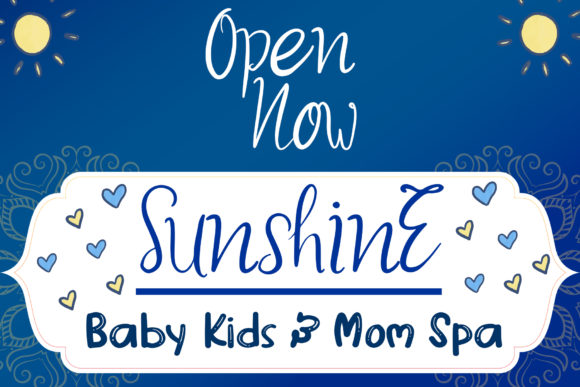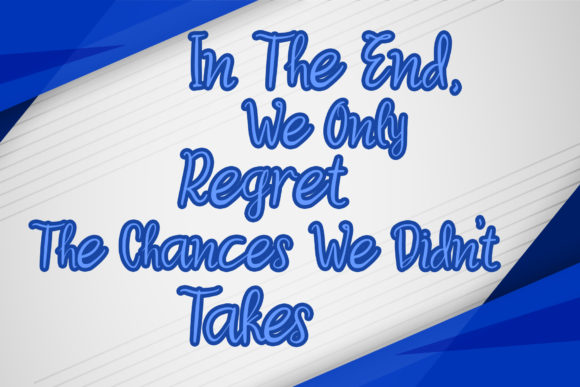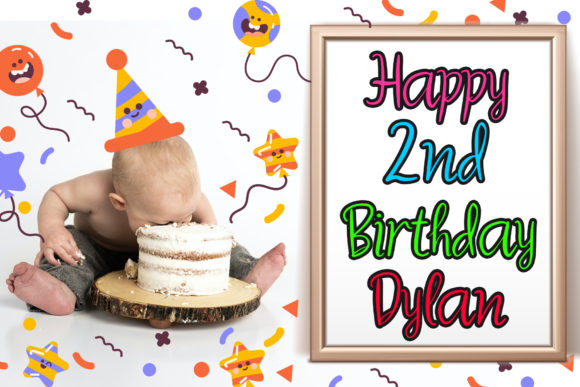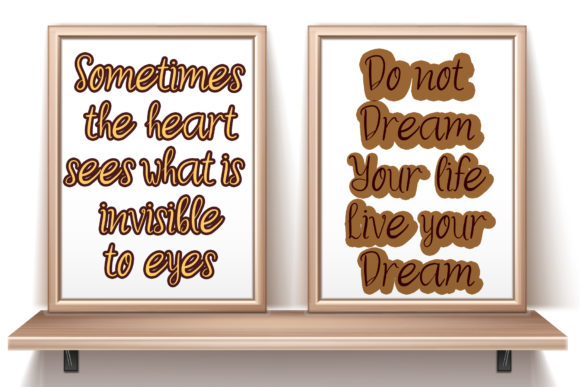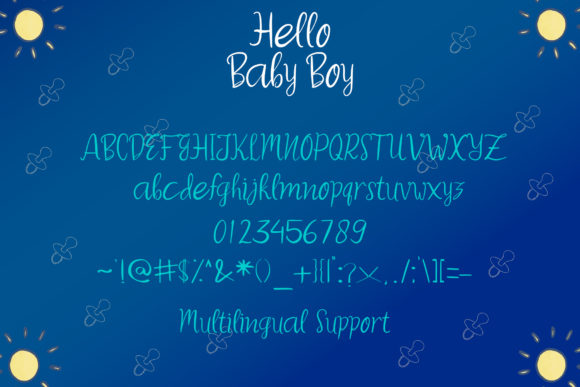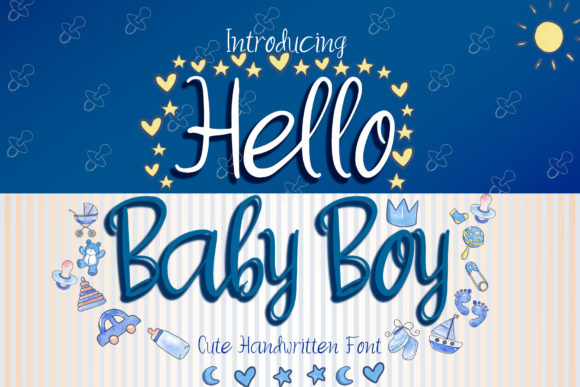
Hello Baby Boy Font: The Sweetest Handwritten Font for Your Creative Projects
Are you looking for a font that can add a touch of sweetness and innocence to your designs? Look no further than the Hello Baby Boy font! This beautiful handwritten font is perfect for designers and crafters who want to create stunning visual content that captures the hearts of their audience. In this article, we’ll explore the features of Hello Baby Boy font, its uses, and why it’s a must-have for any creative project.
What is Hello Baby Boy Font?
Hello Baby Boy is a sweet handwritten font that features cute characters that will make your designs stand out. It’s a carefully crafted font that mimics the elegance of calligraphy, making it perfect for a wide range of creative projects, from DIY crafts to professional designs. Whether you’re looking for fonts for Instagram, blog posts, or marketing materials, Hello Baby Boy font is an excellent choice.
Key Features of Hello Baby Boy Font
- Handwritten style: Hello Baby Boy font has a beautiful handwritten style that gives it a personal and unique touch.
- Cute characters: The font features adorable characters that will make your designs look sweet and innocent.
- Calligraphy-inspired: The font is inspired by calligraphy, making it perfect for projects that require a touch of elegance.
- Easy to read: Despite its decorative style, Hello Baby Boy font is easy to read, making it perfect for body text and headings.
Uses of Hello Baby Boy Font
Hello Baby Boy font is versatile and can be used for a wide range of creative projects, including:
- Instagram graphics: Add a touch of sweetness to your Instagram posts and stories with Hello Baby Boy font.
- DIY projects: Use Hello Baby Boy font to create beautiful calligraphy scripts for your DIY projects, such as handmade cards, gift tags, and more.
- Blog posts: Add a personal touch to your blog posts with Hello Baby Boy font, perfect for headings, titles, and quotes.
- Marketing materials: Use Hello Baby Boy font to create eye-catching marketing materials, such as brochures, flyers, and posters.
Why Choose Hello Baby Boy Font?
There are many fonts available online, but Hello Baby Boy font stands out for several reasons:
- Unique style: Hello Baby Boy font has a unique and distinctive style that will make your designs stand out.
- High-quality design: Hello Baby Boy font is designed with high-quality and attention to detail, ensuring that your designs look professional.
Tips for Using Hello Baby Boy Font
Here are some tips for using Hello Baby Boy font effectively:
- Use it sparingly: Hello Baby Boy font is a decorative font, so use it sparingly to avoid overwhelming your designs.
- Pair it with other fonts: Pair Hello Baby Boy font with other fonts to create a unique and visually appealing combination.
- Experiment with colors: Experiment with different colors to find the perfect match for your designs.
Hello Baby Boy font is a beautiful and versatile font that can add a touch of sweetness and innocence to your designs. With its handwritten style, cute characters, and calligraphy-inspired design, it’s perfect for a wide range of creative projects. Whether you’re a designer or crafter, Hello Baby Boy font is a must-have in your font collection. So why wait? Download Hello Baby Boy font today and turn your creative ideas into true pieces of art!